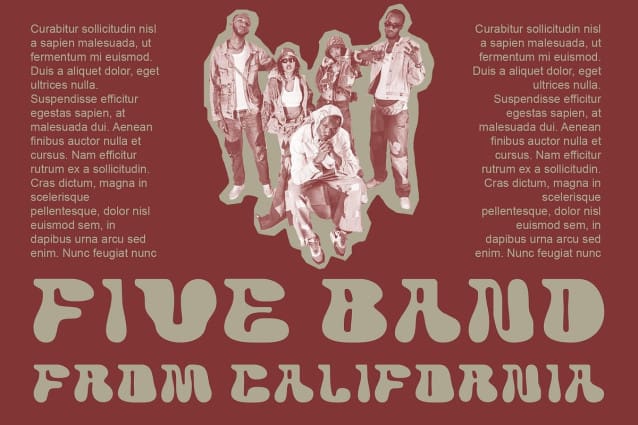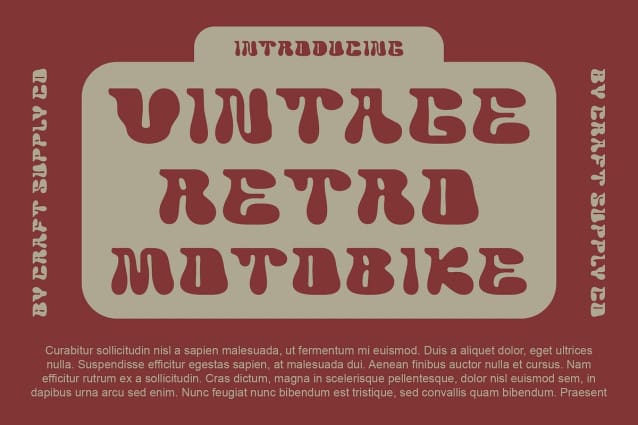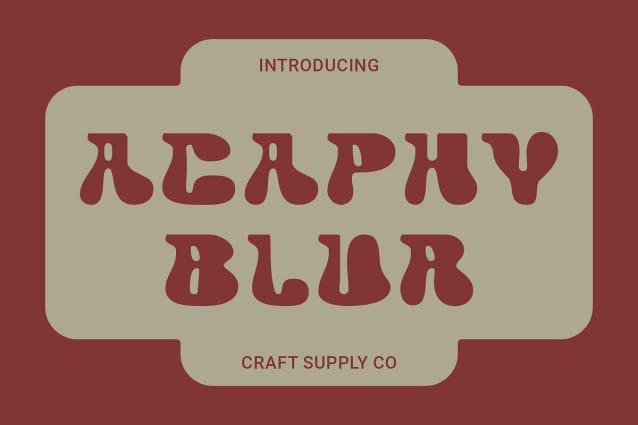
Acaphy Blur Font
Acaphy Blur Font: Vibrant Graffiti Bubble Font. Innovative Balloon Design Acaphy Blur features a unique display style inspired by graffiti bubble fonts, resembling colorful balloons. Its lively appearance adds dynamism to any design project.
Graffiti Influence Drawing inspiration from street art, This font captures the essence of graffiti with its bold, fluid lines and playful bubble shapes. It injects a sense of urban energy into your designs.
Perfect for Eye-Catching Displays Tailored for display purposes, This font excels in grabbing attention. Whether used in posters, headlines, or advertisements, its bold and bubbly letters ensure maximum impact.
Versatile Application Beyond its graffiti-inspired roots, This font offers versatility in application. It adapts well to various design contexts, from digital platforms to physical prints, bringing a burst of creativity to any project.
Bursting with Creativity This font emerges as a vibrant and dynamic font choice for display purposes. With its playful balloon-like design and graffiti influence, it adds an energetic flair to your designs, ensuring they stand out in any setting. Dive into the world of This font and unleash your creativity with its bold and bubbly charm.